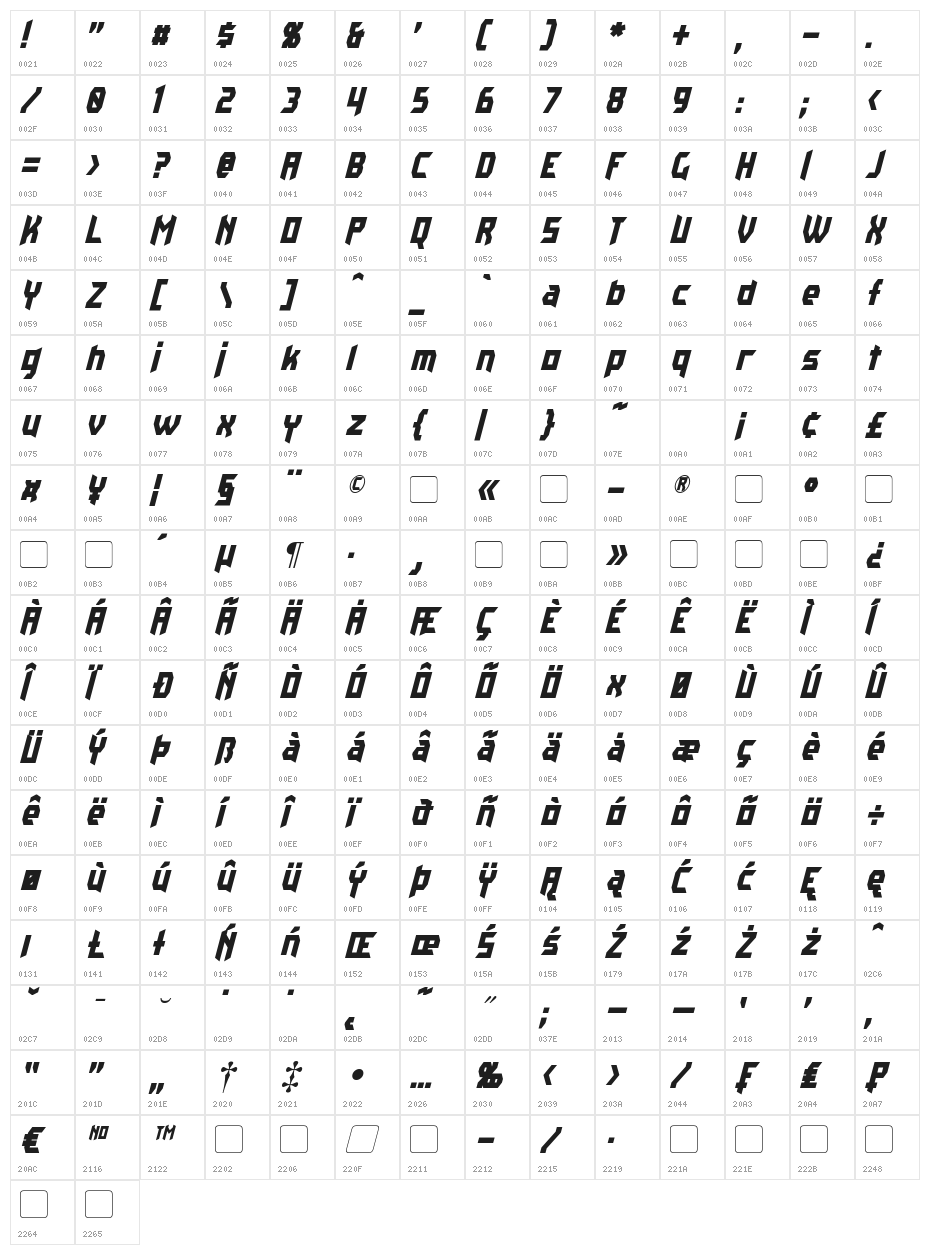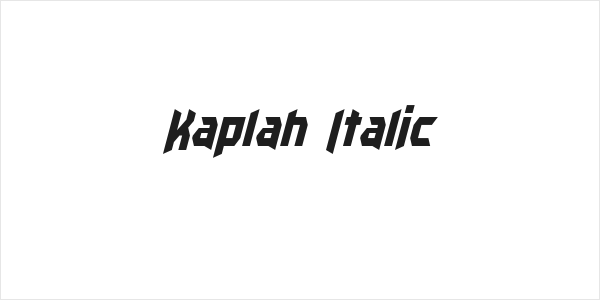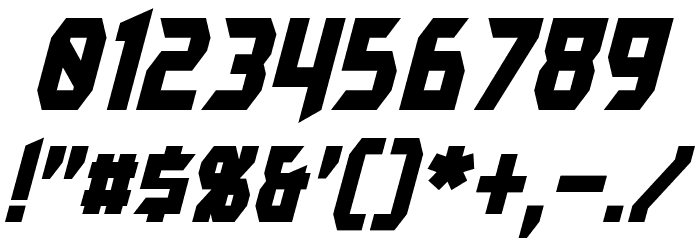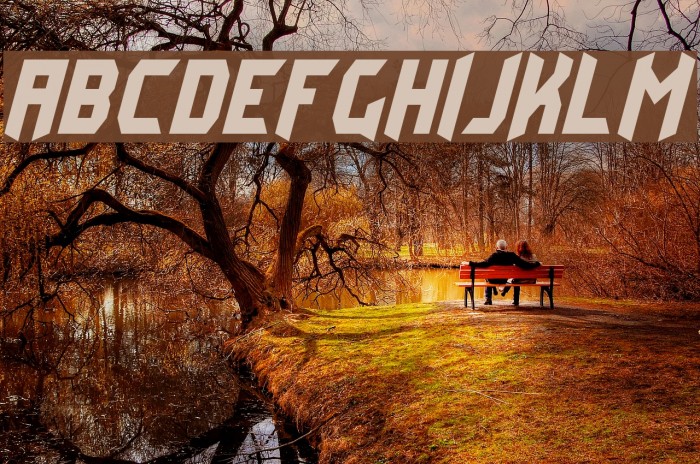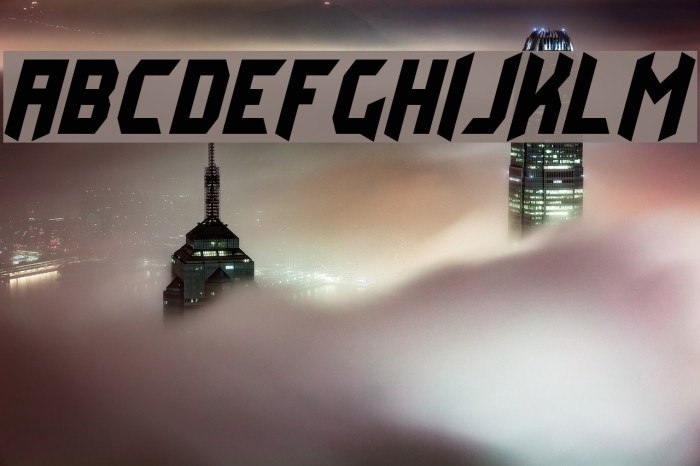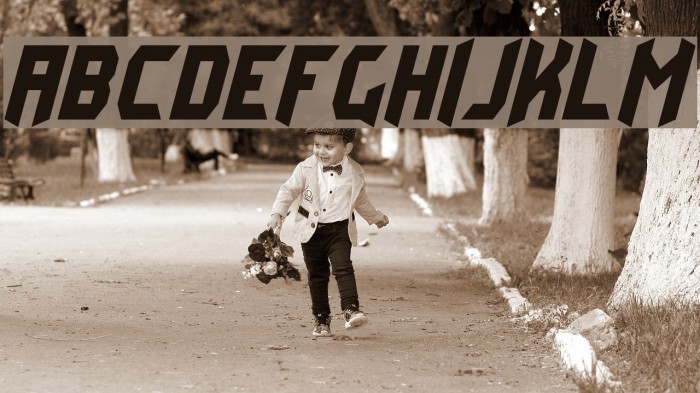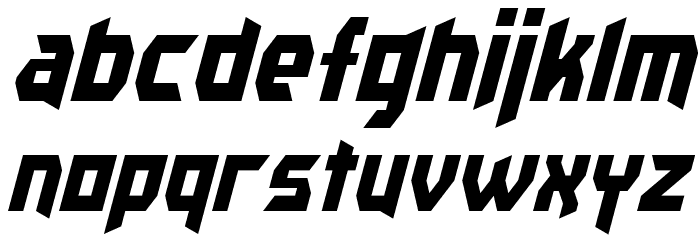
Kaplah Italic Font
| Style général | Futuristic, Dynamic |
| Projets proposés | Ideal for sci-fi themed posters, video game titles, and edgy branding projects. |